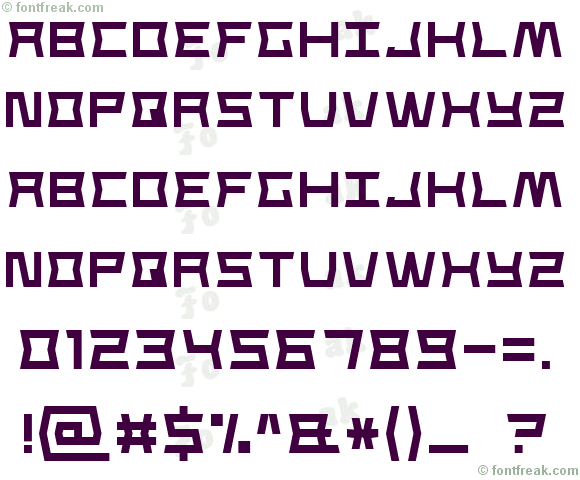
Strong Line 7
Strong Line 7 is a striking display font designed by Style-7, categorized under the sans-serif style. This font features bold, geometric forms with a strong emphasis on clean lines and a modern aesthetic. The stroke weight is consistent throughout, providing a uniform appearance that enhances legibility. The typeface displays minimal contrast, emphasizing its straightforward design. With its well-proportioned spacing, Strong Line 7 ensures clarity in various applications, making it an excellent choice for both digital and print media.
This font works exceptionally well in a variety of contexts. It is perfect for creating eye-catching movie posters, where boldness and readability are paramount. Additionally, Strong Line 7 can elevate restaurant menus, giving them a contemporary flair that attracts diners. Small business owners may find it ideal for branding materials, such as logos and business cards, as it conveys strength and professionalism. Content creators can utilize this font in social media graphics, ensuring their posts stand out in a crowded feed.
Targeting graphic designers and small business owners alike, Strong Line 7 offers versatility and a modern edge. Its unique visual characteristics make it suitable for a range of creative projects, appealing to those who seek to make a statement with their typography.
In conclusion, the Strong Line 7 font free download is a distinctive choice that enhances any design project. Its bold, geometric style and versatility set it apart from other display fonts, making it an essential addition to any designer's toolkit. Whether for digital or print applications, Strong Line 7 provides a strong visual impact that leaves a lasting impression.